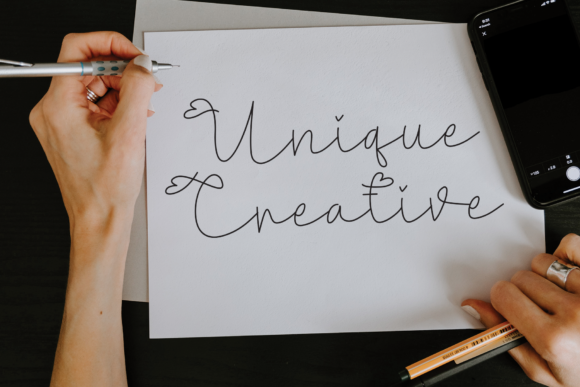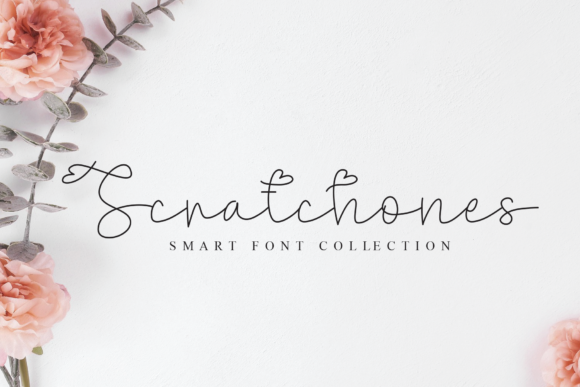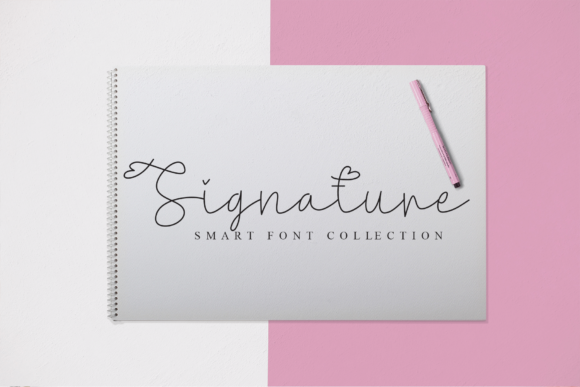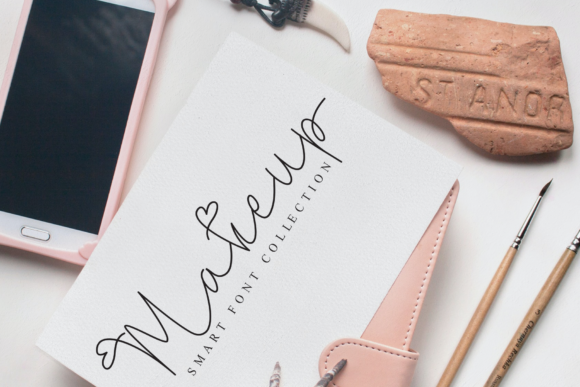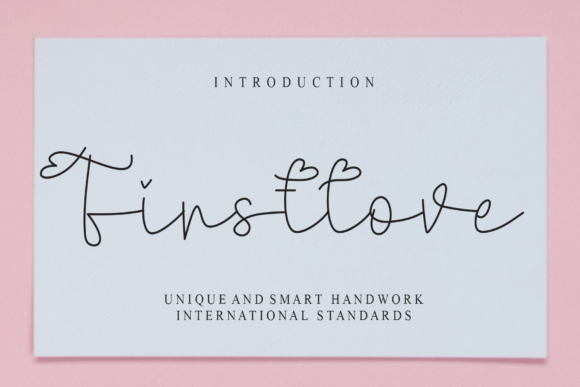
Introducing Firstlove Font: The Elegant and Dainty Handwritten Font for Crafty Designs
Are you a designer or crafter looking for a unique and elegant font to elevate your creative projects? Look no further than Firstlove Font, a beautiful handwritten font that features sweet and delicate swashes. With its original look and versatile style, Firstlove Font is perfect for a wide range of crafty ideas, from letterheads and titles to stationery and more.
The Characteristics of Firstlove Font
Firstlove Font is a meticulously crafted handwritten font that exudes elegance and sophistication. Its delicate swashes and sweet flourishes make it perfect for designs that require a touch of whimsy and romance. The font’s elegant and dainty appearance makes it ideal for use in:
- Letterheads and titles: Add a touch of elegance to your business letters and titles with Firstlove Font.
- Stationery: Create beautiful and unique stationery sets, including greeting cards, invitations, and thank-you cards.
- Crafting projects: Use Firstlove Font to add a personal touch to your crafting projects, such as scrapbooking, journaling, and paper crafting.
What Makes Firstlove Font Stand Out
So, what sets Firstlove Font apart from other fonts? Here are a few key features that make it a standout:
- Unique and original design: Firstlove Font features a one-of-a-kind design that is sure to grab attention.
- Elegant and dainty appearance: The font’s delicate swashes and sweet flourishes make it perfect for designs that require a touch of elegance.
- Versatile style: Firstlove Font can be used in a variety of design projects, from formal to informal.
- Easy to read: Despite its elegant appearance, Firstlove Font is easy to read, making it perfect for use in body text.
How to Use Firstlove Font in Your Designs
Using Firstlove Font in your designs is easy. Here are a few tips to get you started:
- Pair it with other fonts: Firstlove Font pairs well with other fonts, such as sans-serif fonts and script fonts.
- Use it for headings and titles: Firstlove Font is perfect for use in headings and titles, where its elegant appearance can shine.
- Add a personal touch: Use Firstlove Font to add a personal touch to your designs, such as in journaling and scrapbooking.
Here are a few tips for designers and crafters looking to get the most out of Firstlove Font:
- Experiment with different colors: Firstlove Font looks great in a variety of colors, from soft pastels to rich jewel tones.
- Play with swashes and flourishes: Firstlove Font features delicate swashes and flourishes that can add a touch of elegance to your designs.
- Use it in combination with images: Firstlove Font pairs well with images, such as photographs and illustrations.
In conclusion, Firstlove Font is a beautiful and elegant handwritten font that is perfect for designers and crafters looking to add a touch of sophistication to their creative projects. With its unique and original design, elegant appearance, and versatile style, Firstlove Font is sure to become a favorite in your font collection.